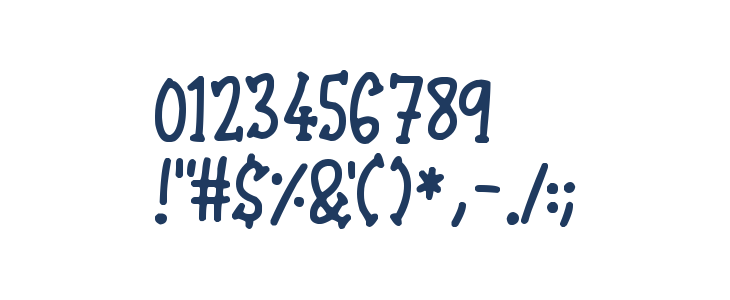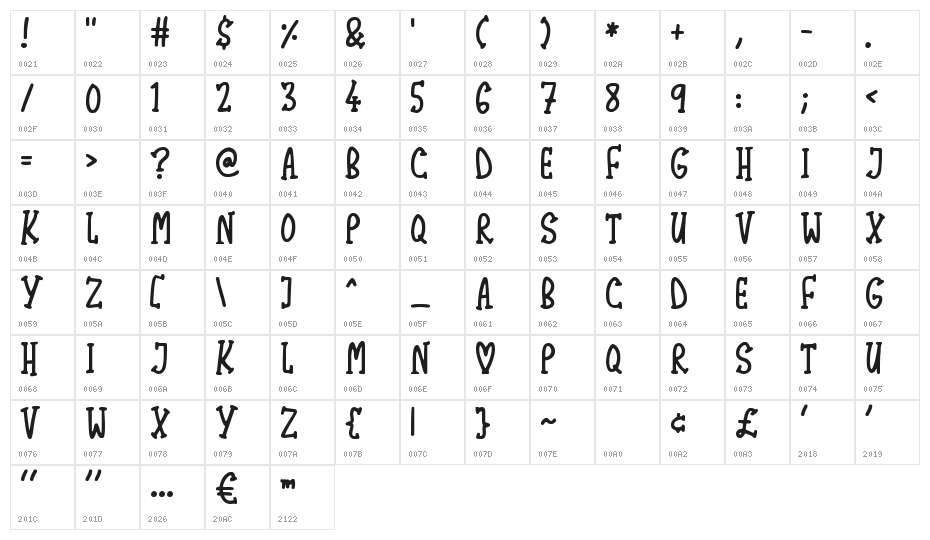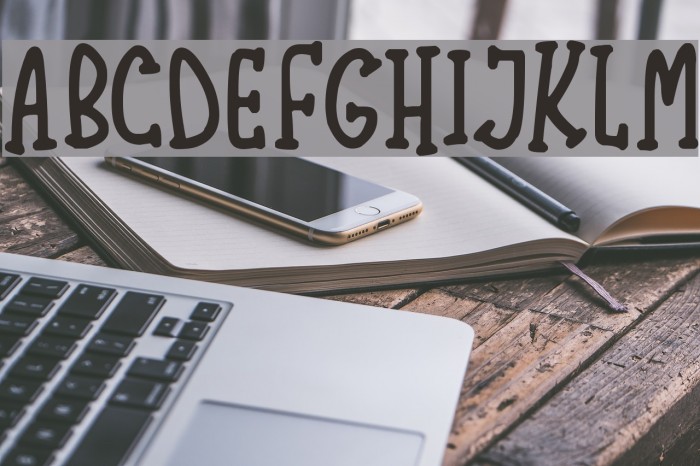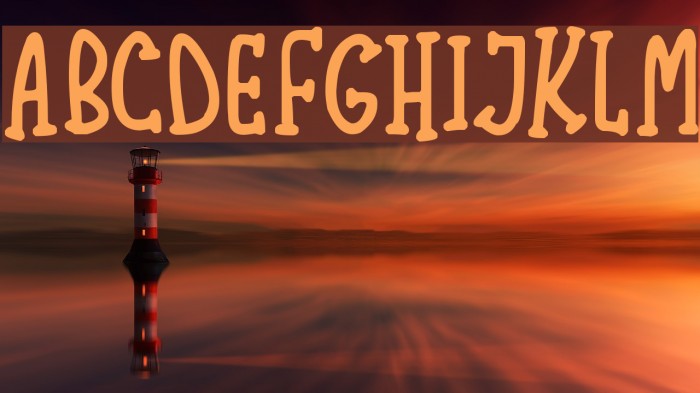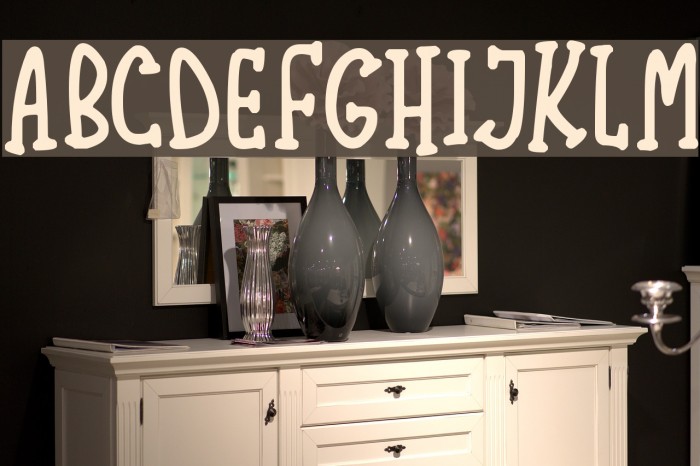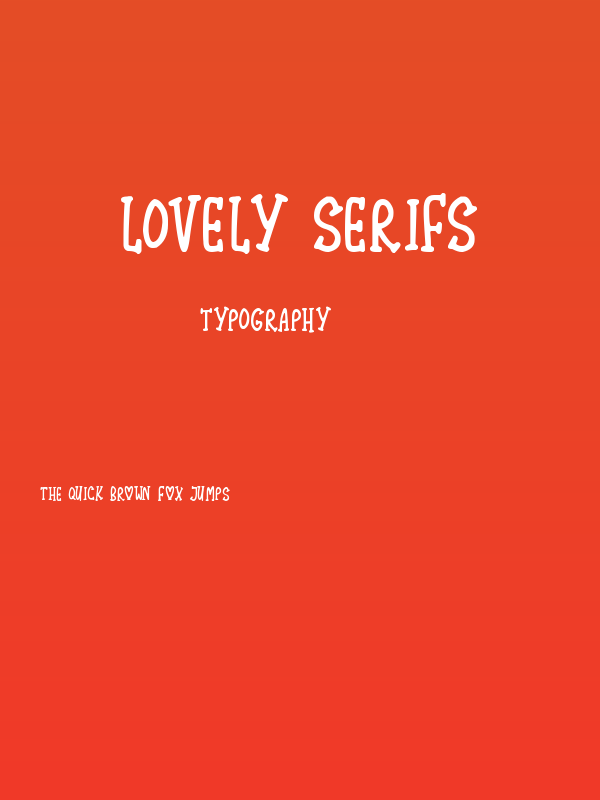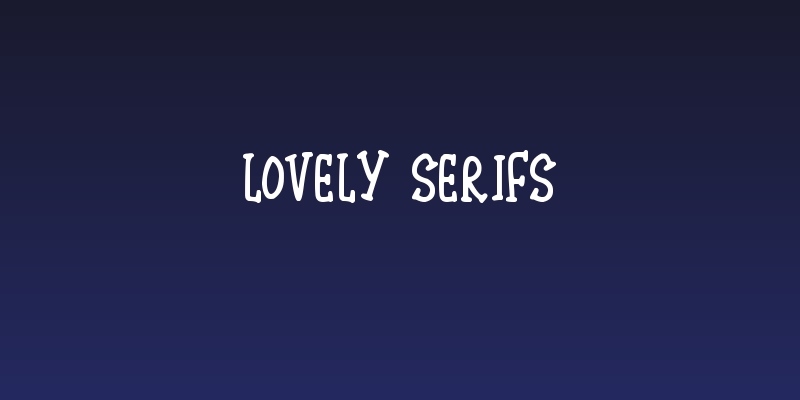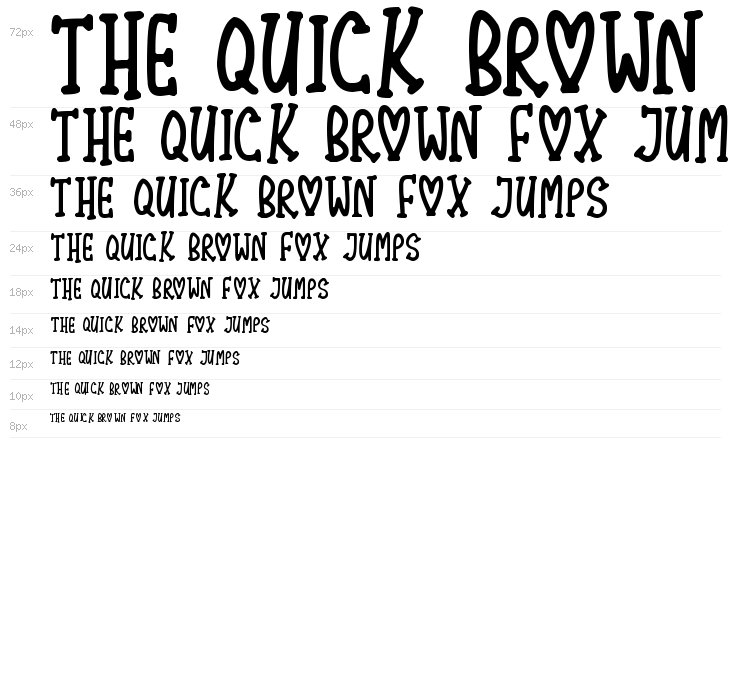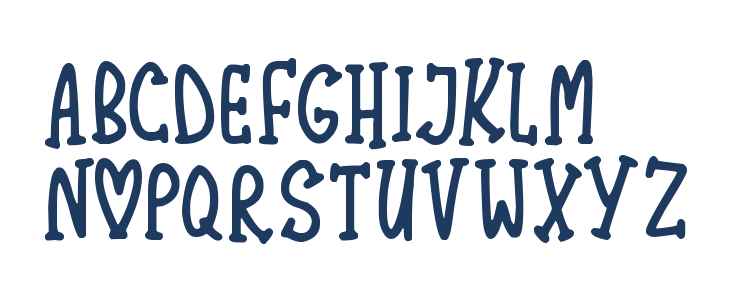
Lovely Serifs Font
Lovely Serifs Description
This font features a playful and whimsical design with bold, rounded serifs that give it a distinctive and friendly appearance. The characters are slightly condensed, with a consistent stroke width that maintains a uniform look across both uppercase and lowercase letters. The numbers and special characters share the same playful style, making the font suitable for creative and informal projects. The overall style is decorative, with a touch of vintage charm, making it ideal for projects that require a fun and engaging typeface.
| Proposed Projects | Ideal for children's books, greeting cards, playful branding, and creative posters. |